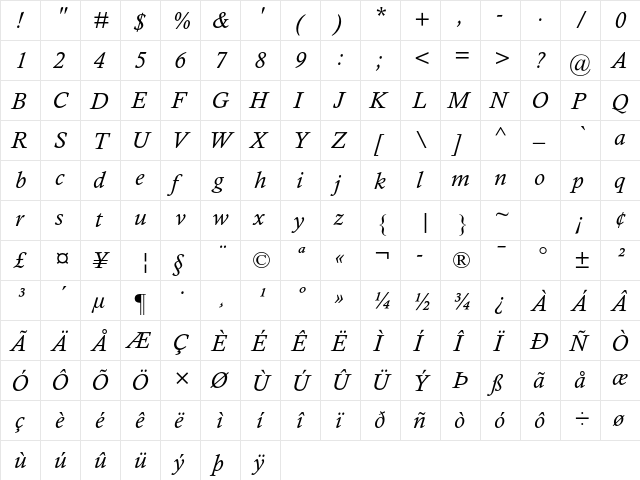
Calisto MT Std Italic Font Preview
Calisto MT Std Italic
Calisto MT Std Italic Font Details
| Foundry | Agfa Monotype Corporation |
Design Context for Calisto MT Std Typeface
Calisto MT Std offers clean, dependable letterforms without strong stylistic allegiance, making it a practical choice for designers who need flexibility. The dynamic lean of this cut emphasises speed and emphasis in any layout.
Pro Tip: Use Calisto MT Std for emphasis, pull quotes, and subheadings where its slanted energy can add rhythm to the layout.